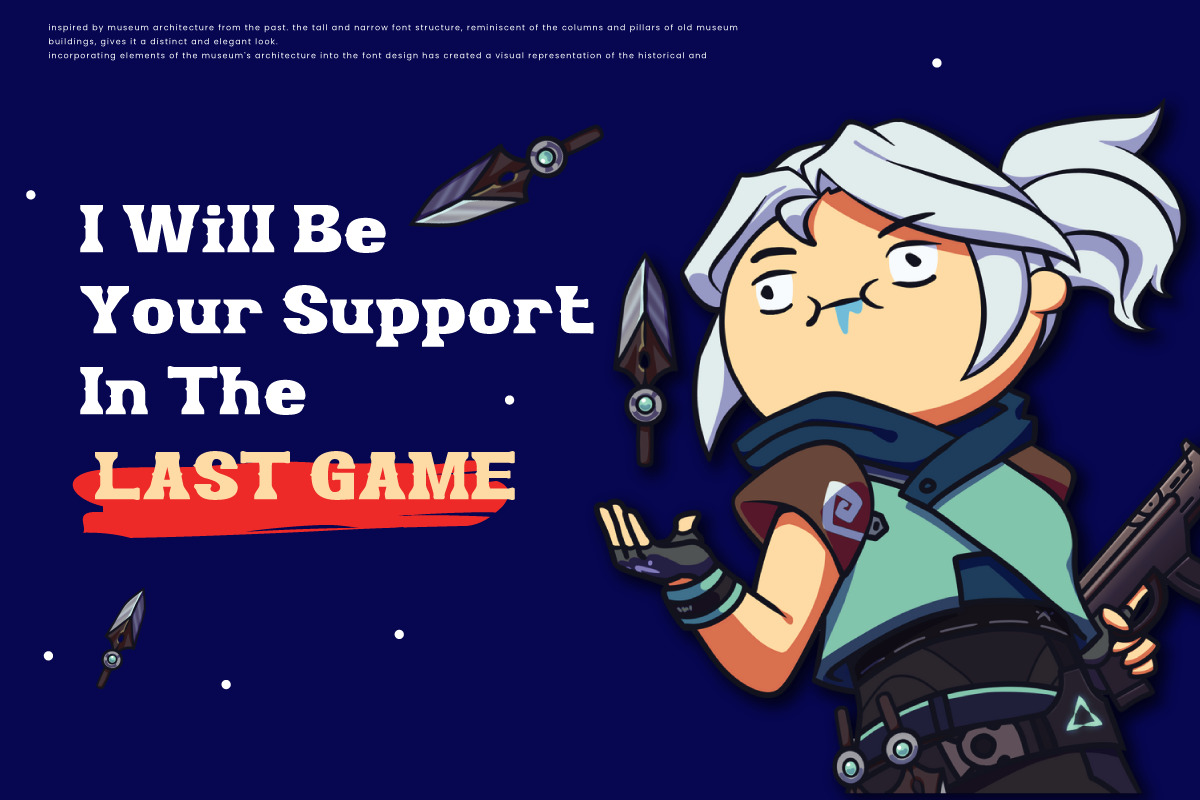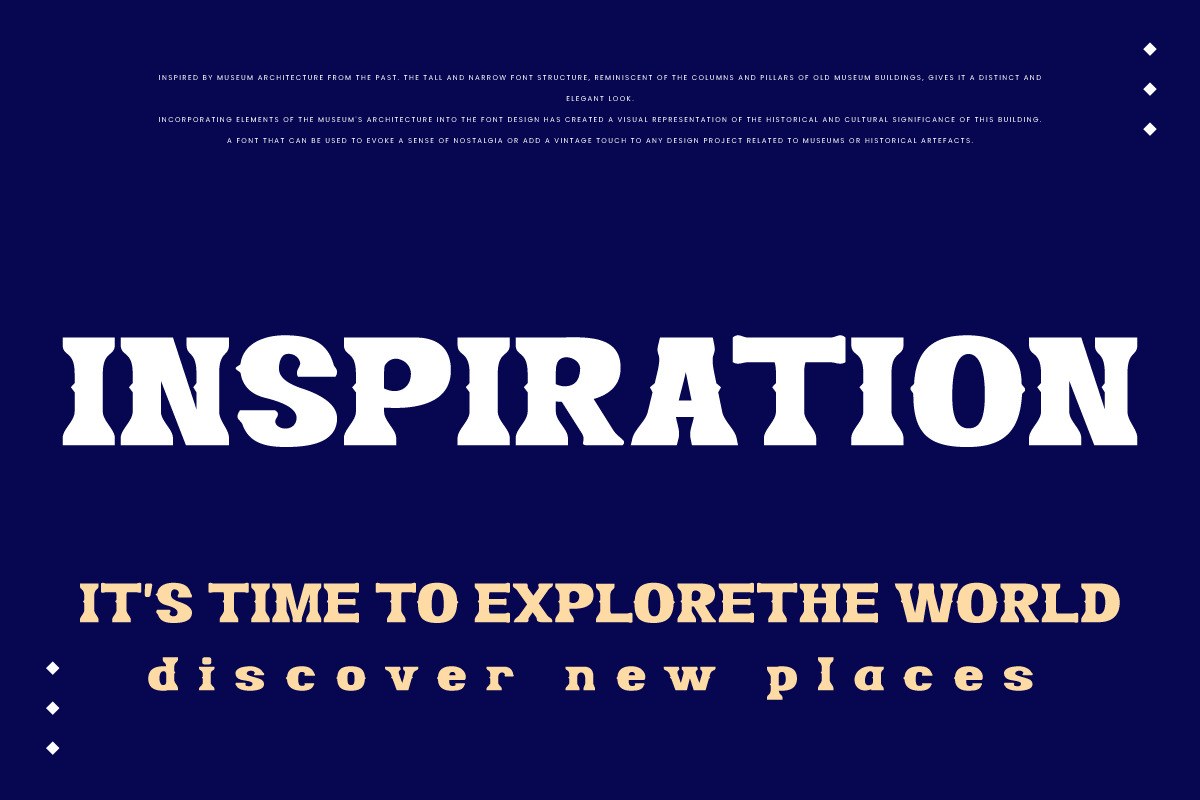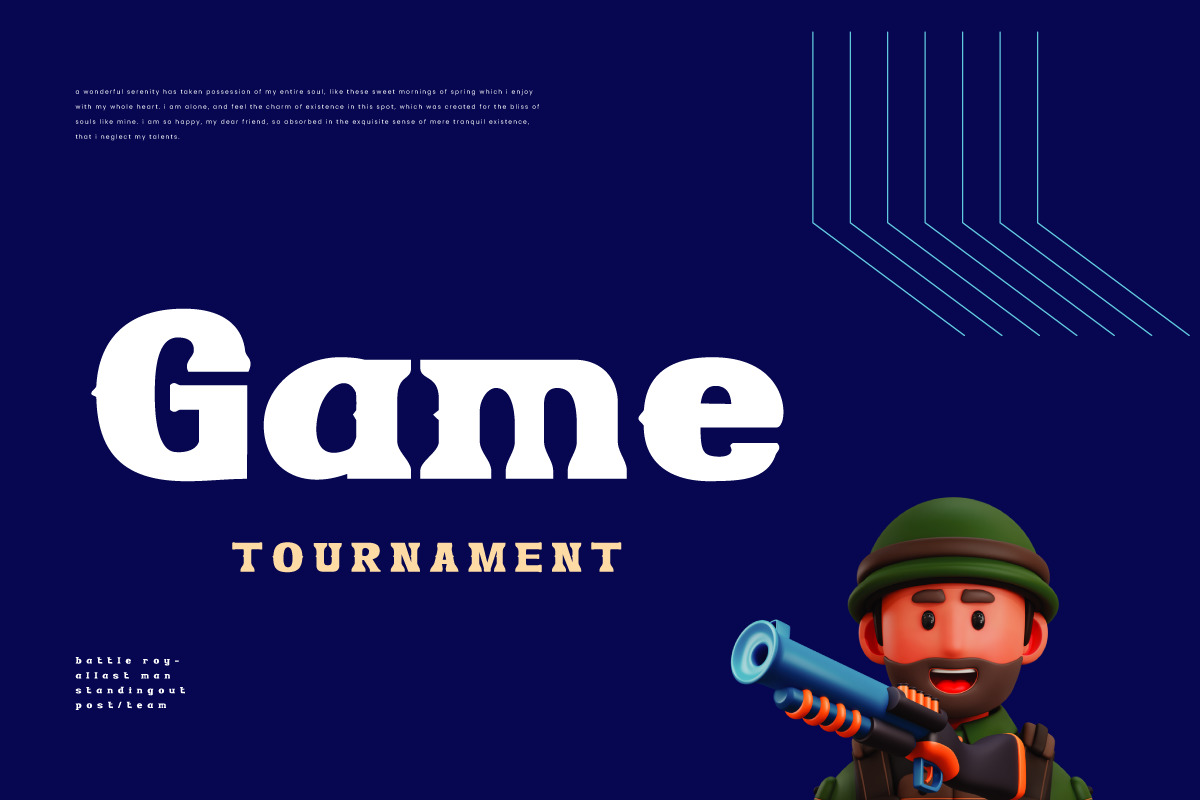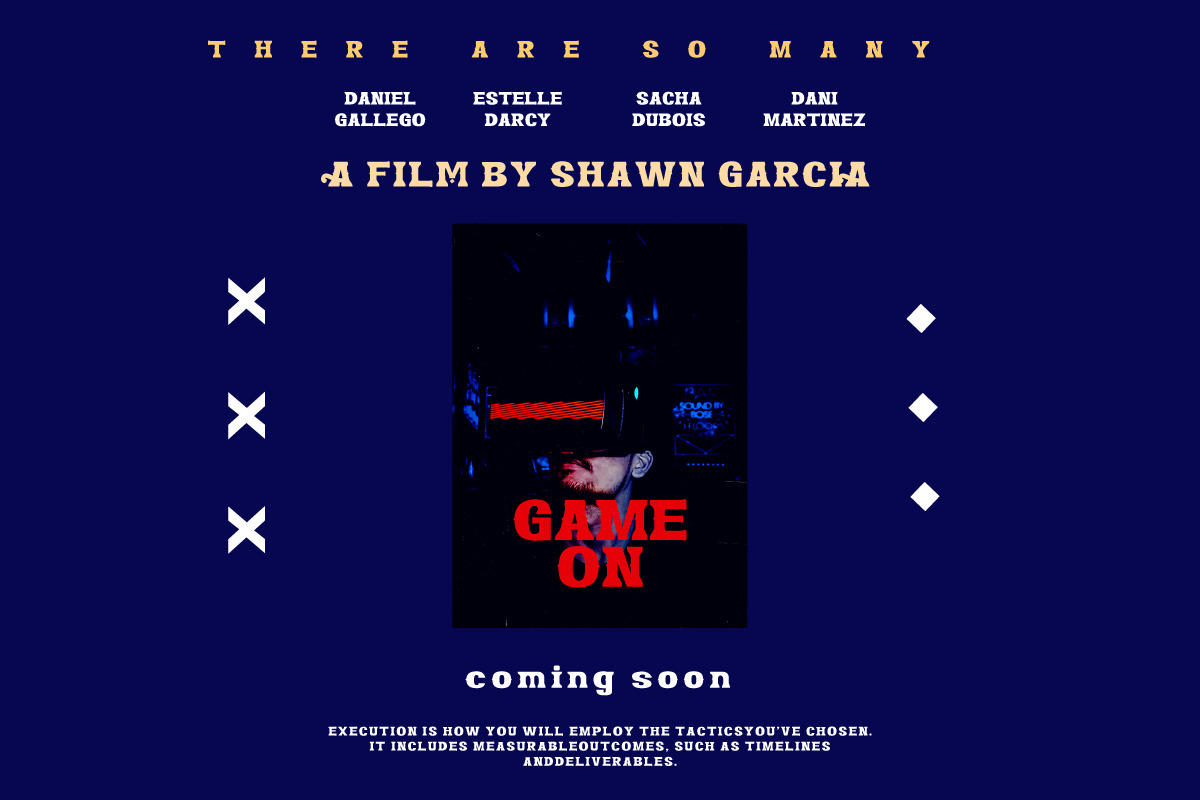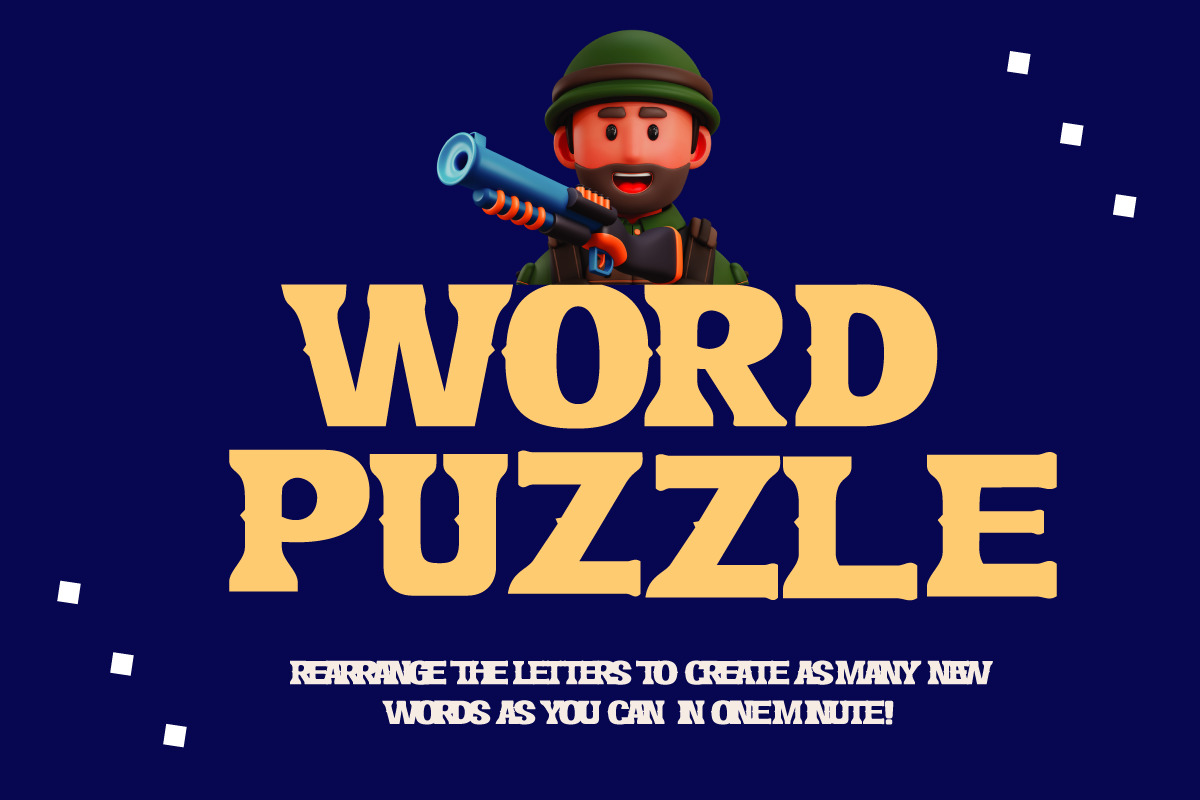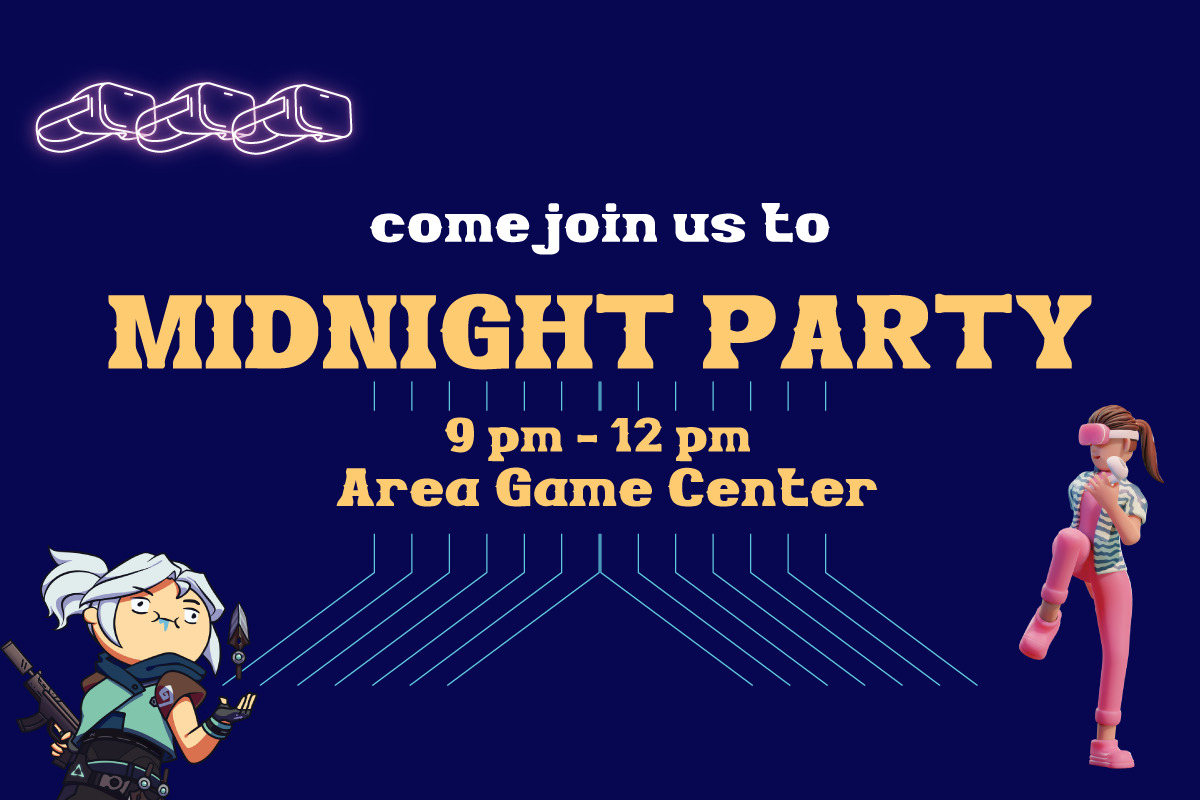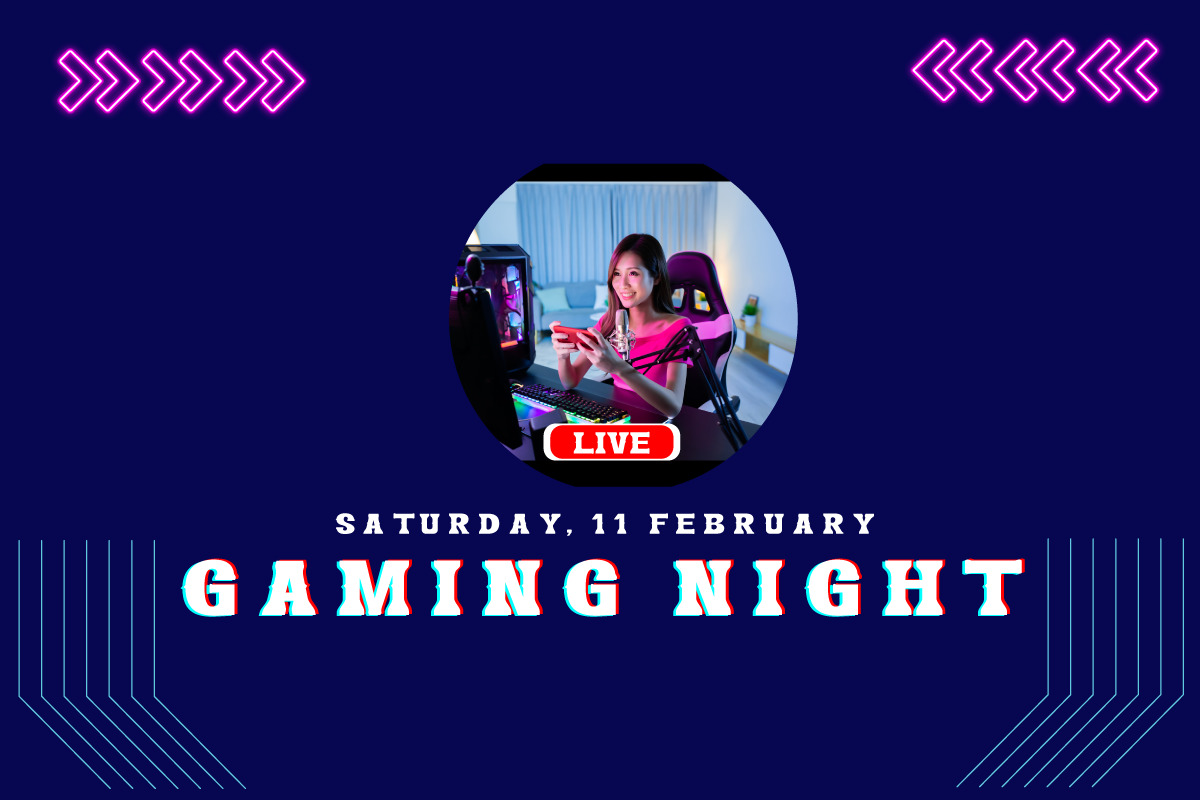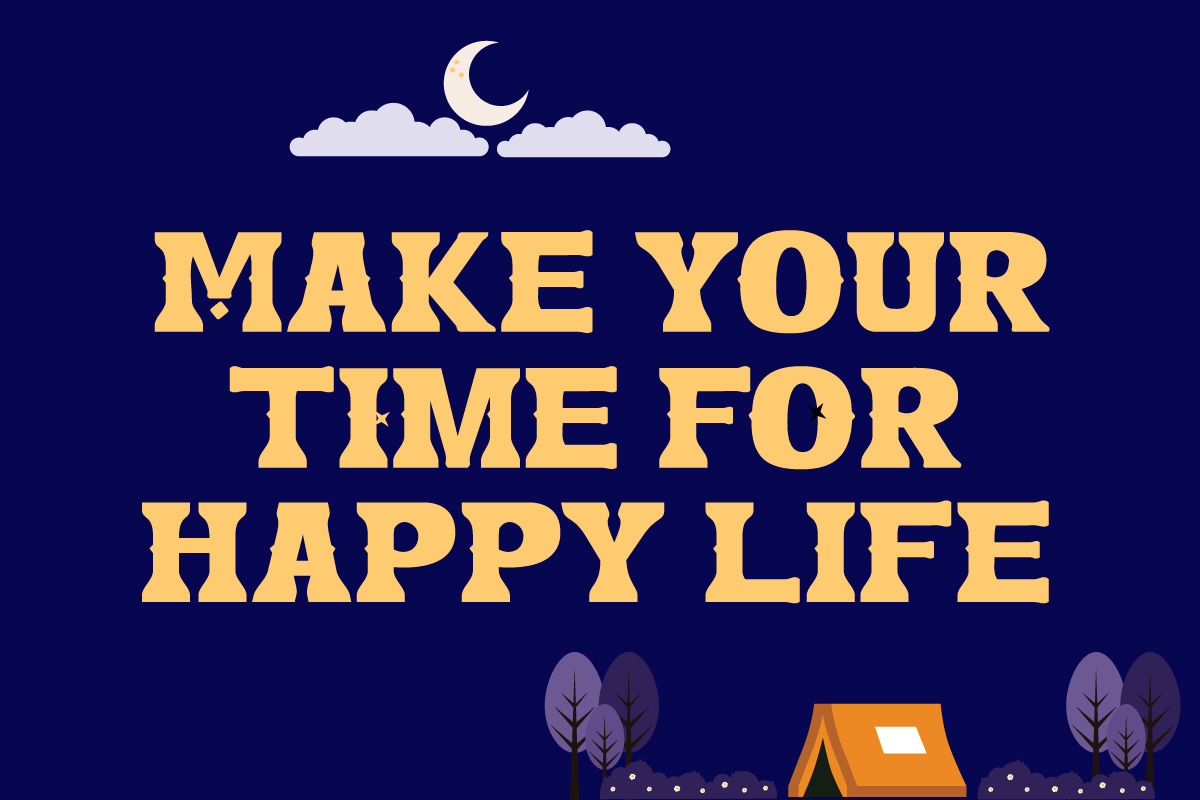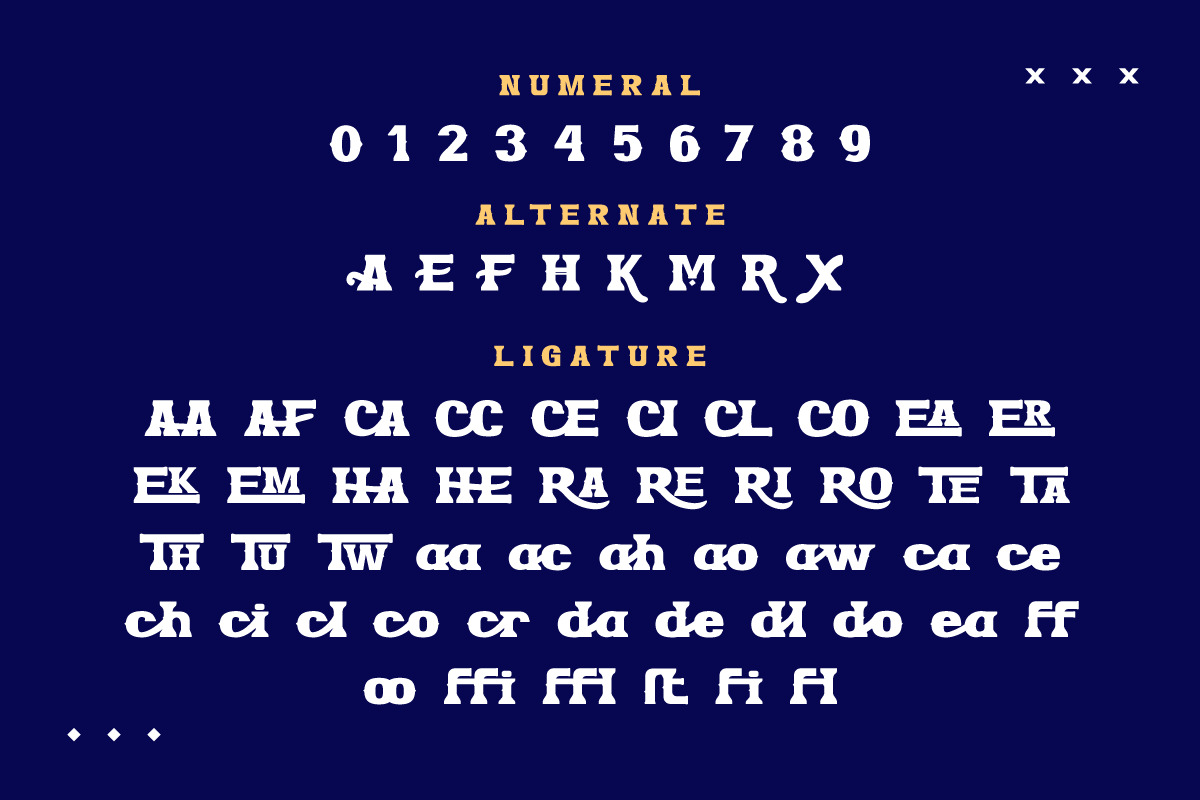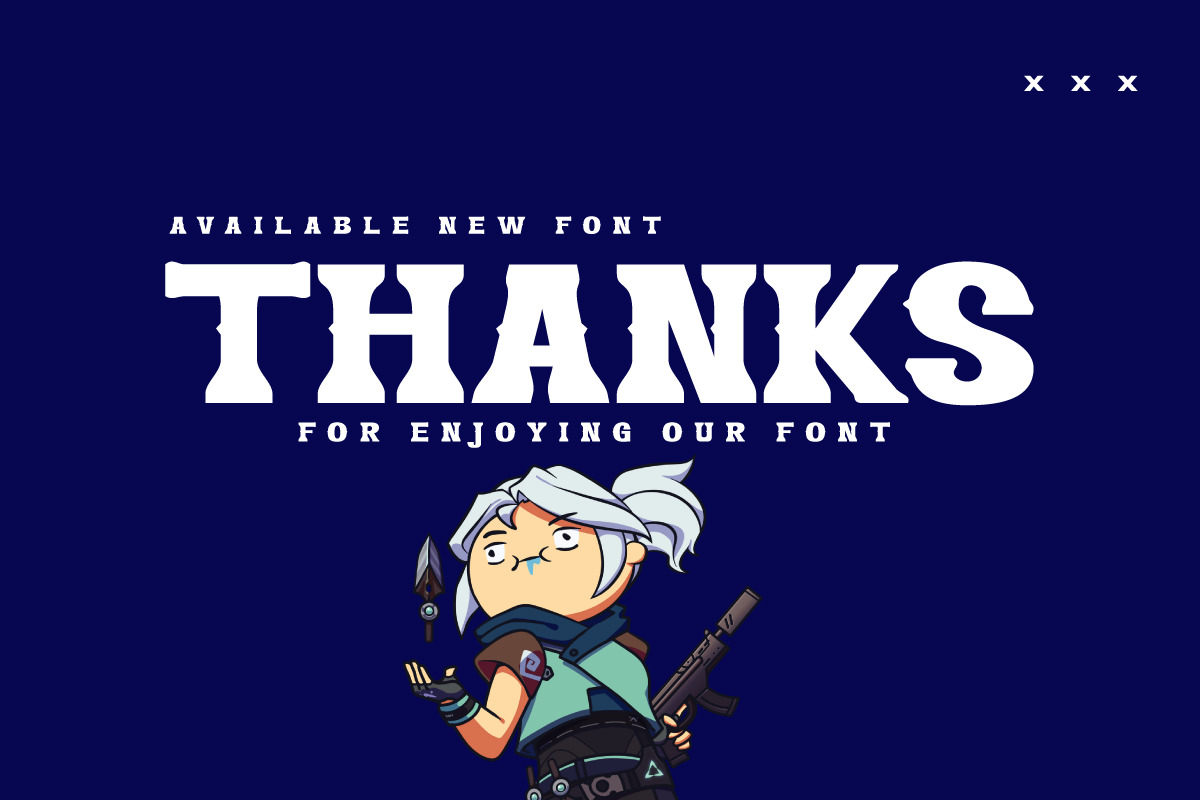
AMEZ FONT
AMEZ is a strong and distinctive headline font. AMEZ has a striking design that grabs readers' attention right away.
Unique alternatives and ligatures are important elements that let you make an unlimited number of design changes. You can adjust your font to reflect your individual style and personality by choosing from a wide range of alternate character possibilities and entertaining letter combinations.
AMEZ is a multilingual project-friendly font that also supports a number of languages. This typeface offers a clean and clear presentation across a range of media and resolutions thanks to its excellent quality and dependability.